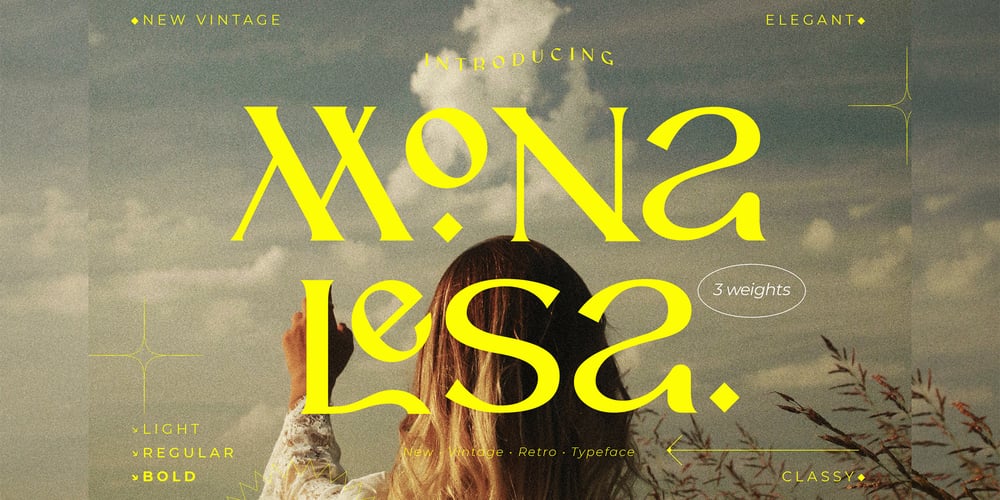
CCS Monalesa
CCS Monalesa font
CCS Monalesa Font Family was designed by Kurt Harahap and published by Creative Corner Studio. CCS Monalesa contains 3 styles and family package options. Monalesa is a New Vintage font that is both elegant and unique with smooth curves and beautiful ligatures, tons of special alternative glyphs, ornament and multilingual support. It’s a very versatile font that works great in large and small sizes. Monalesa is perfect for branding projects, Logo design, Clothing Branding, product packaging, magazine headers, or simply as a stylish text overlay to any background image.